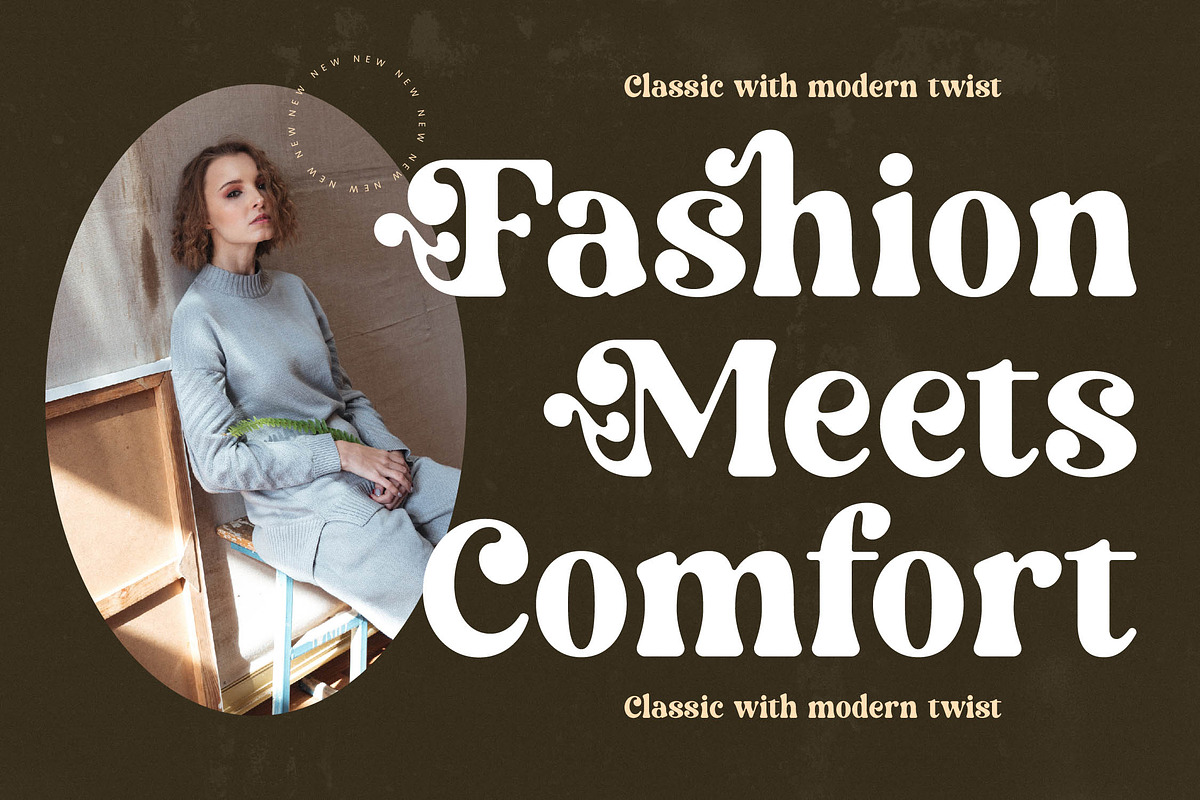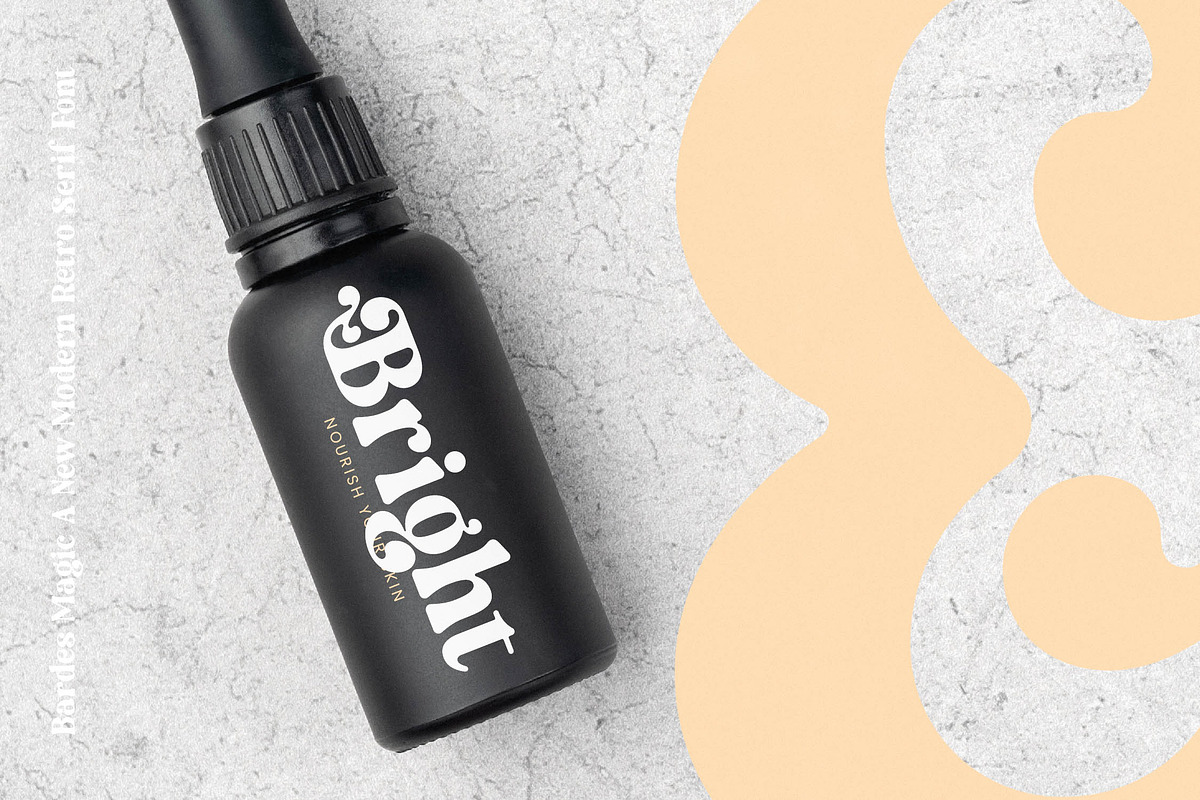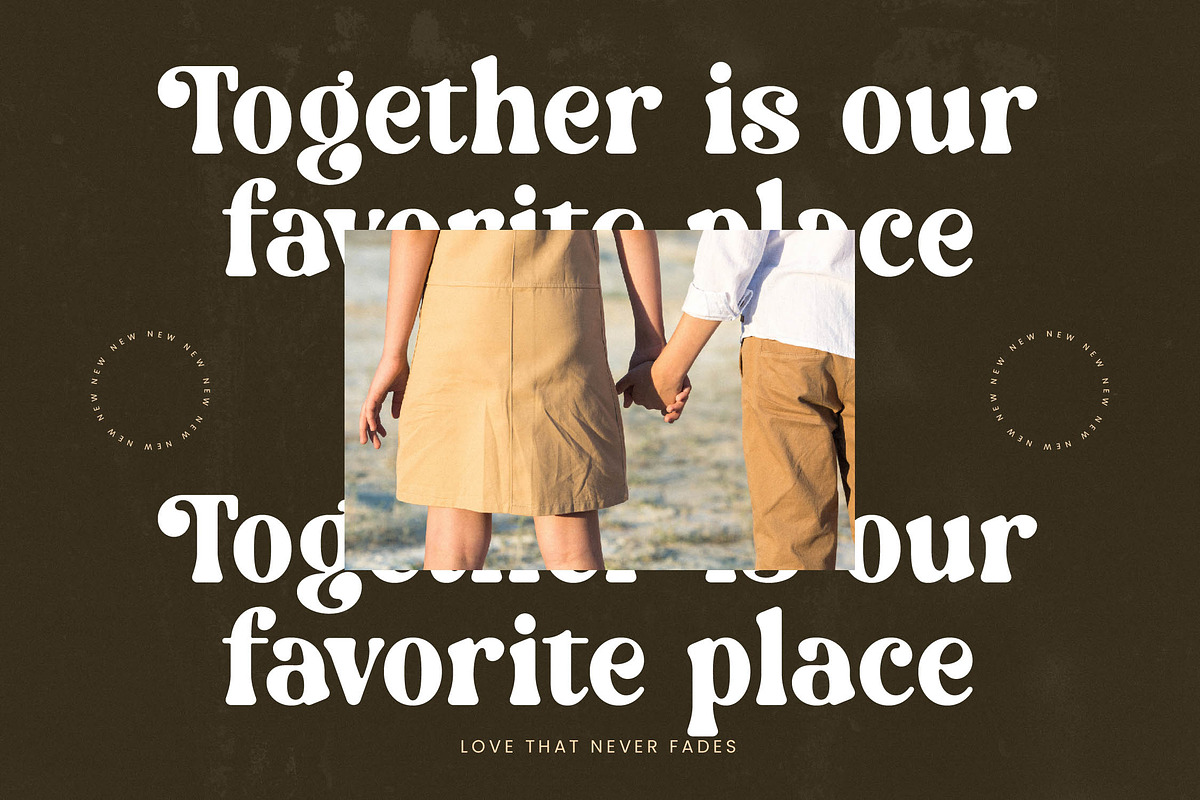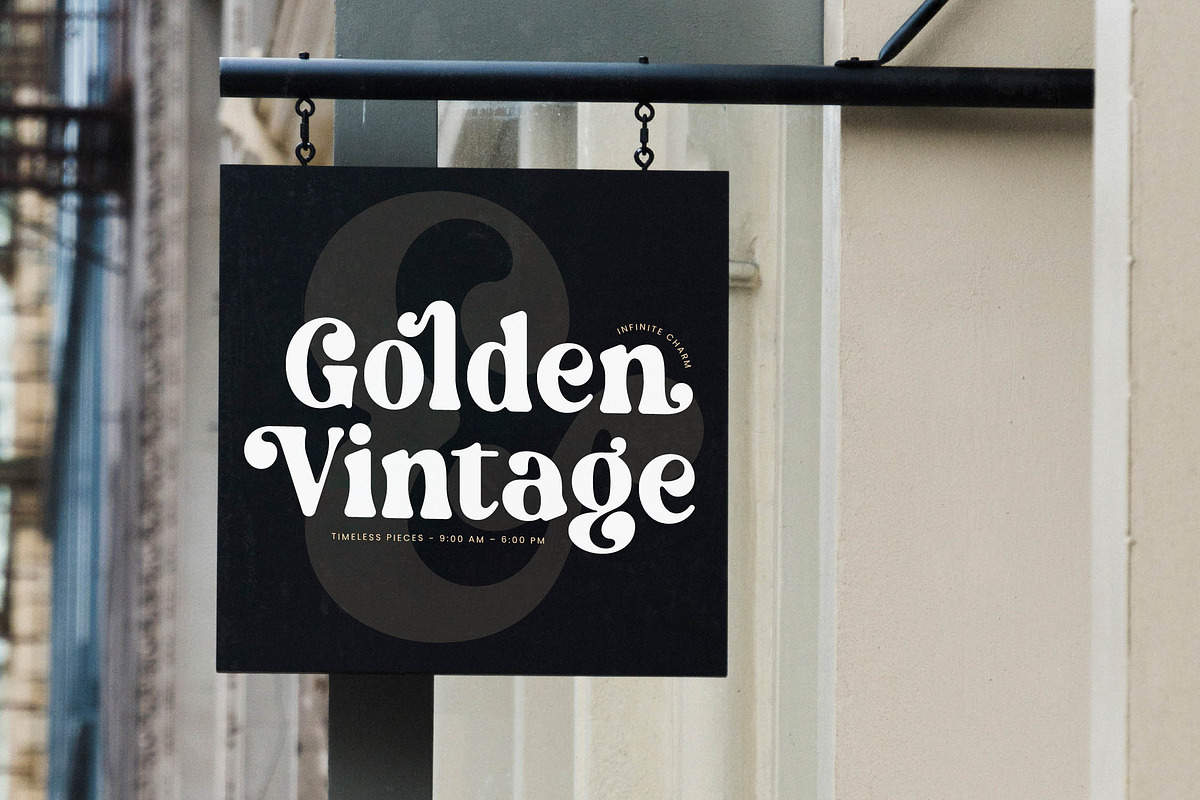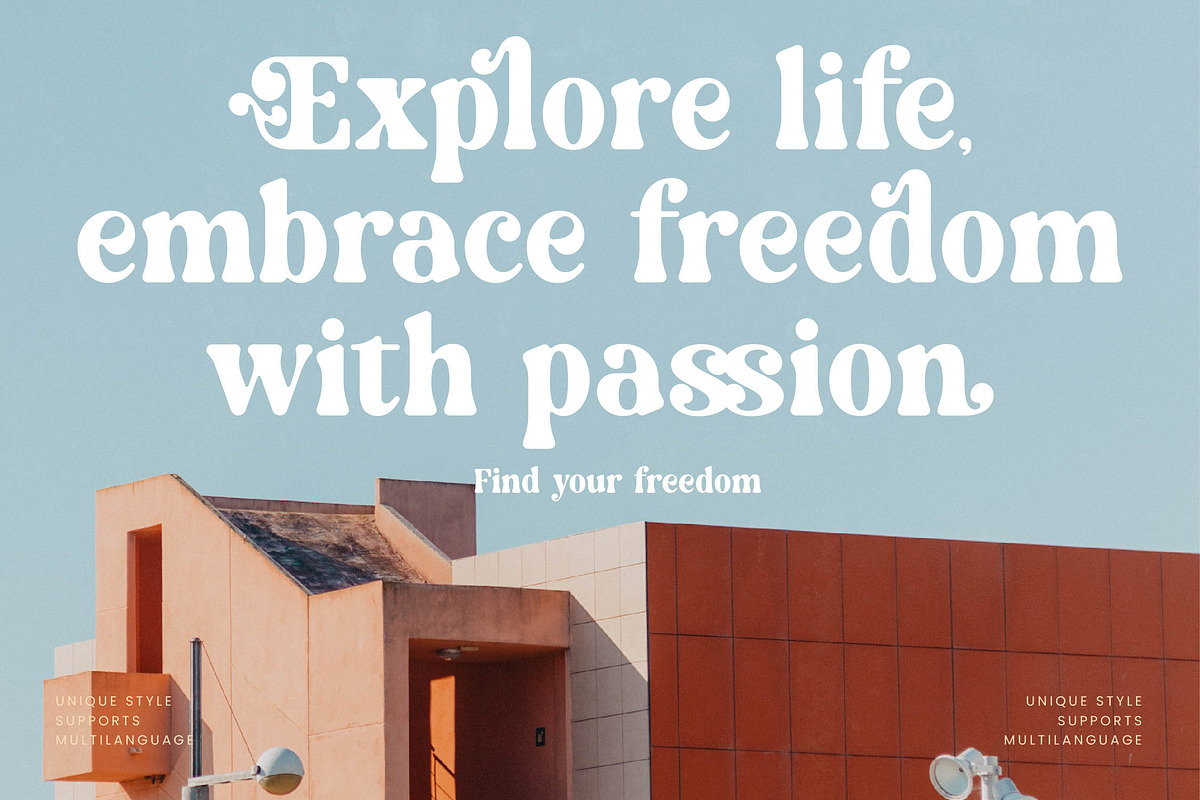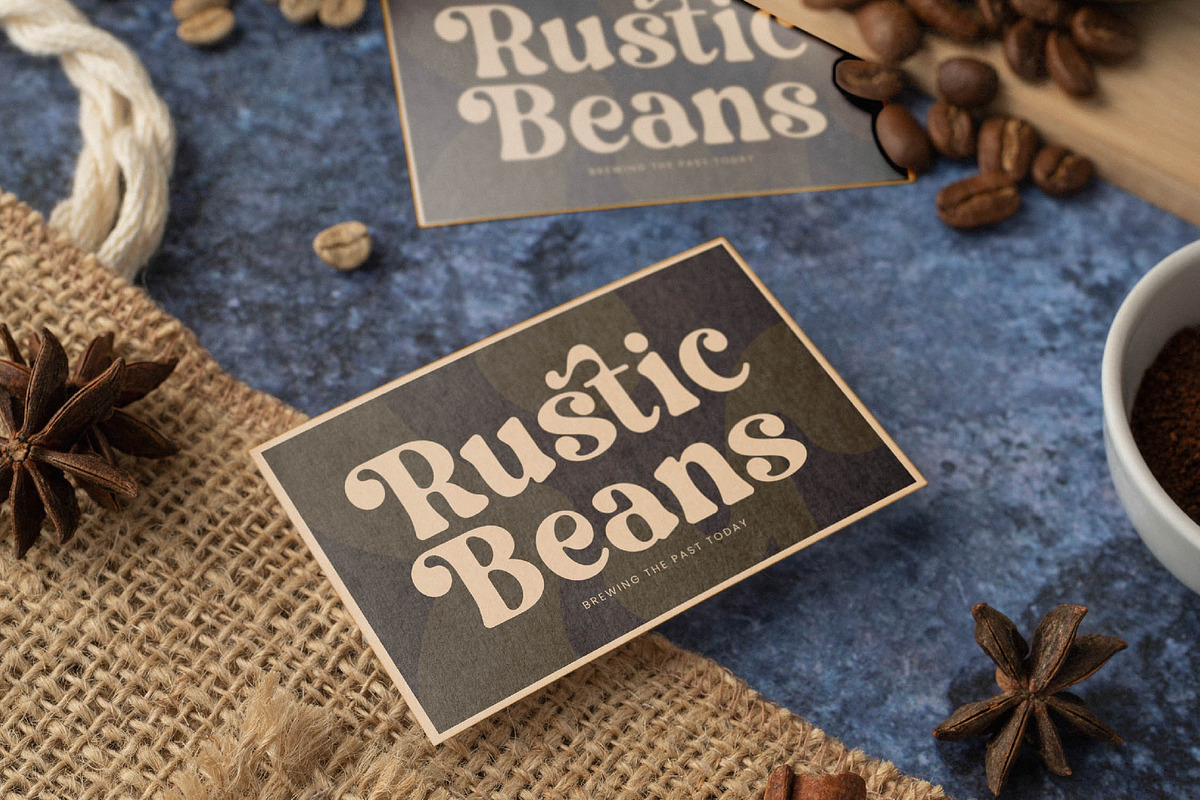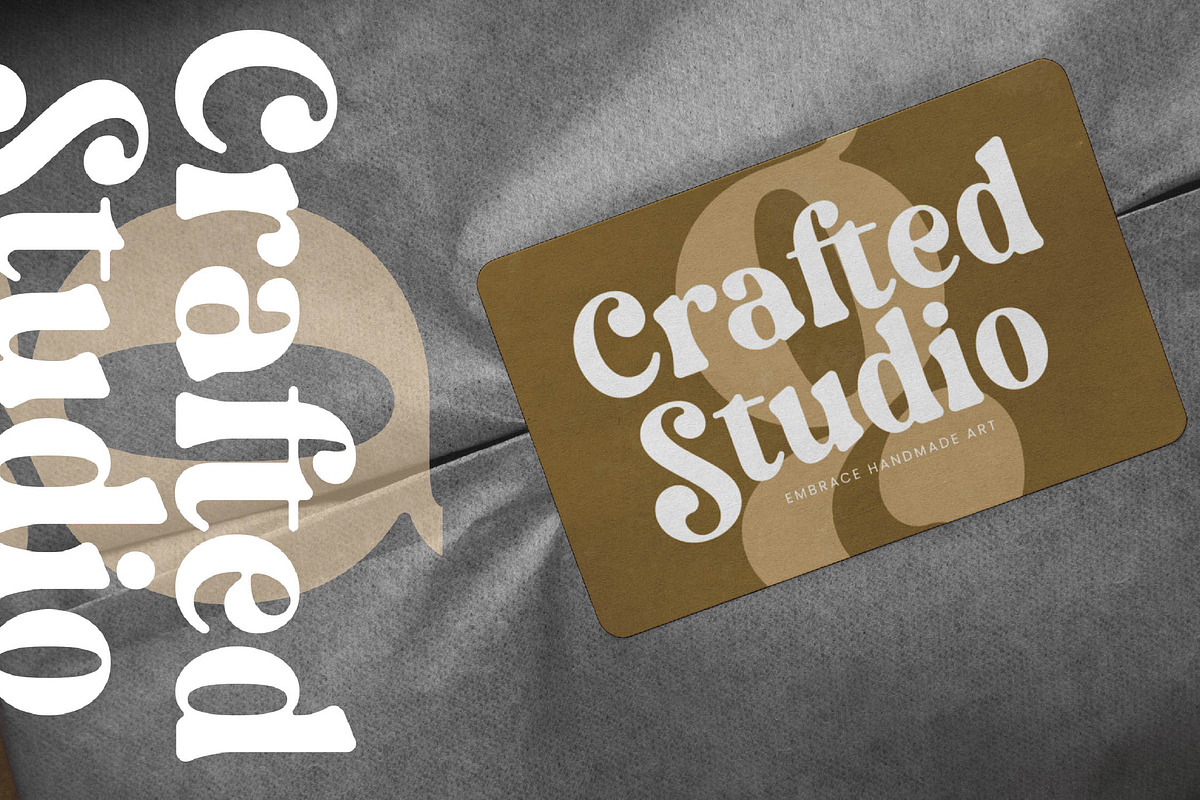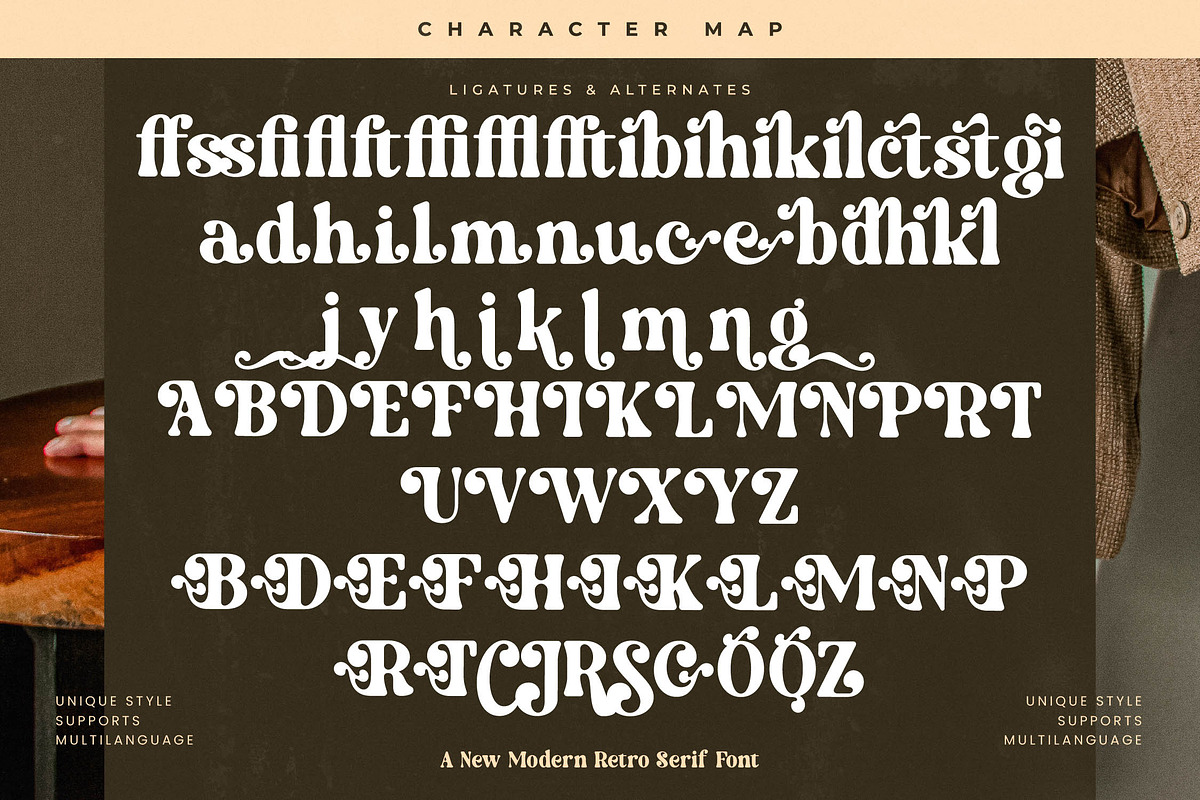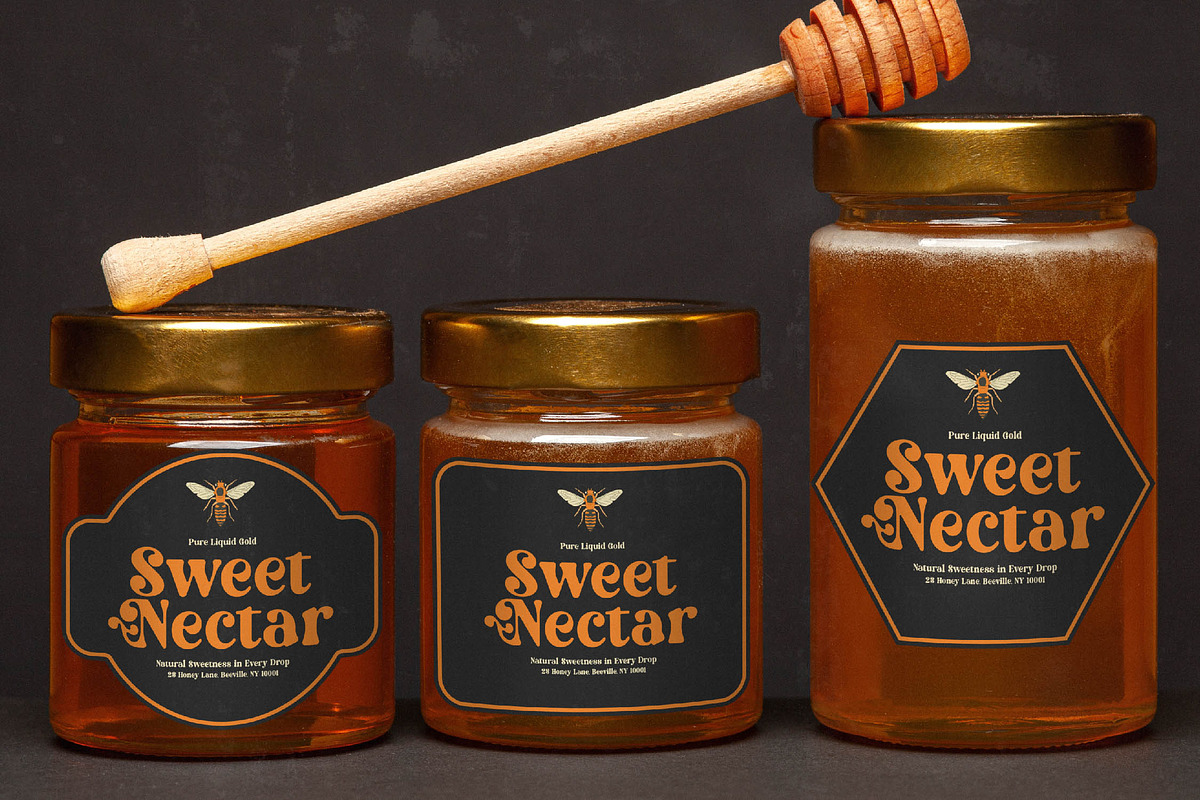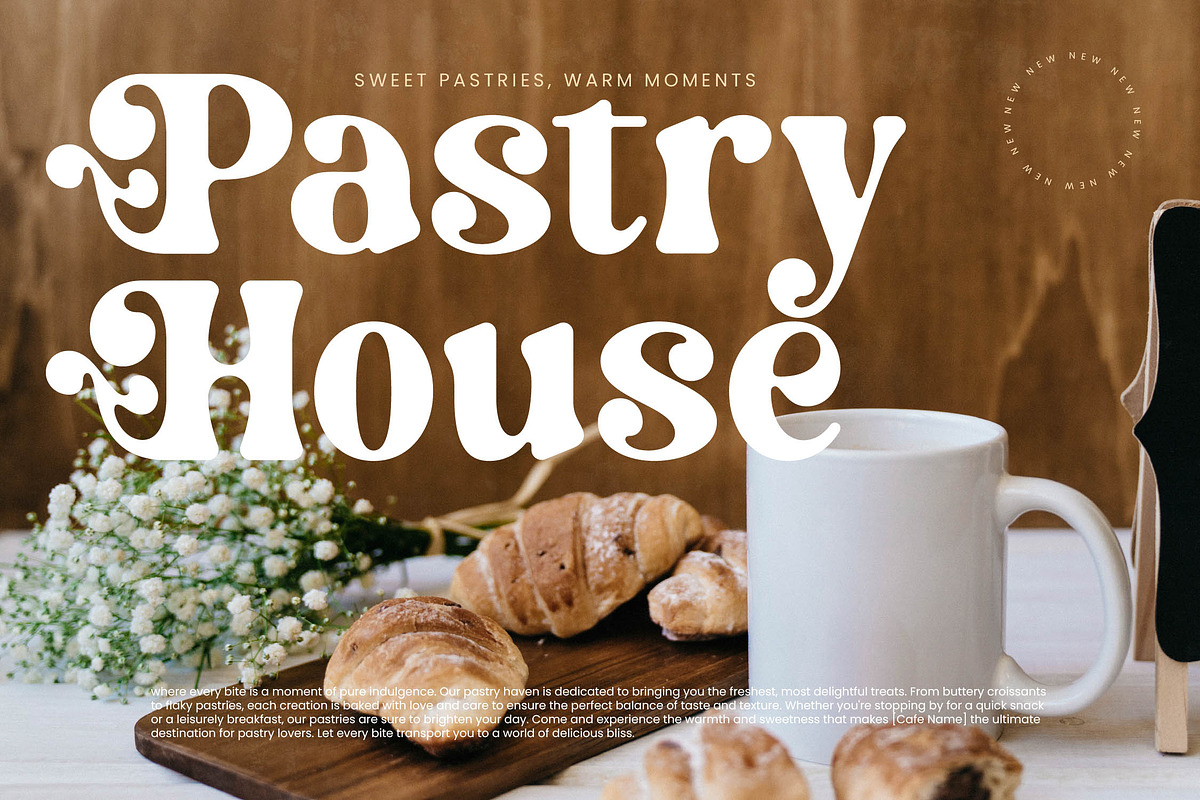
Bardes Modern Retro Serif Font
Experience the captivating charm of Bardes, a typeface that masterfully blends nostalgia with a cutting-edge aesthetic. This font is designed to command attention while maintaining an effortless sense of sophistication in every character.
Drawing inspiration from the golden era of 1970s typography, this font captures the groovy fluidity of retro curves and reimagines them for the contemporary creator. The result is a visual narrative that feels both familiar and refreshingly new, evoking a sense of timeless magic in every stroke.
With its modern serif display and luxury typography feel, this font offers a high-contrast serif profile that ensures maximum branding impact. It serves as a definitive editorial font for those who want their message to resonate with elegance and power.
Keeping pace with the current modern serif trend, this typeface is a perfect example of editorial display fonts that define today's visual landscape. Its character-driven typography allows designers to tap into a high-end aesthetic that is currently dominating the fashion and lifestyle industries.
Ideal for high-end logo design and comprehensive branding projects, it also shines in editorial layouts and luxury packaging. Whether you are working on a sophisticated wedding invitation or a bold fashion lookbook, this typeface provides the versatility needed for premium creative output.
This comprehensive package includes essential ligatures and creative alternates that allow for deep customization through expressive swashes. Furthermore, it boasts full multilingual support and a wide array of international characters, making it a global solution for professional designers.
- Ligature 15 Alternate 65